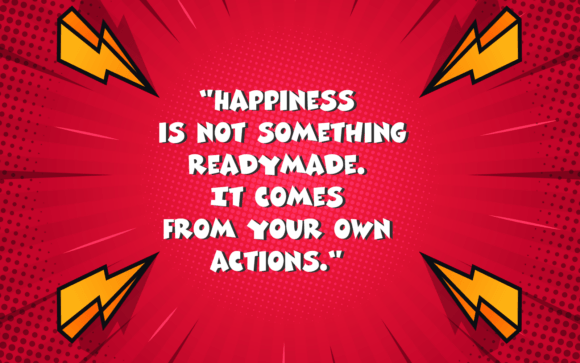
Introducing Comic Crunch Font: Unleash the Fun and Energy of Comics in Your Designs!
Are you a designer, artist, or crafter looking to add a playful and dynamic touch to your projects? Look no further than the Comic Crunch Font! This bold and energetic font is specifically designed to capture the fun, action-packed spirit of cartoon stories and comic art. With its thick, rounded lines and lively personality, Comic Crunch Font is the perfect choice for anyone looking to bring a sense of excitement and energy to their designs.
The Perfect Font for Comic Art and Cartoon Stories
Comic Crunch Font is designed to pop off the page, making it ideal for use in speech bubbles, headlines, and captions. Its unique and dynamic flair adds a touch of playfulness to every word, transporting your readers into the world of comics. Whether you’re creating a comic book, a cartoon, or a graphic novel, this font is sure to bring your characters and stories to life.
Key Features of Comic Crunch Font
- Bold and Energetic: Comic Crunch Font features thick, rounded lines that give it a bold and energetic feel, perfect for capturing the action-packed spirit of comics.
- Playful Personality: This font has a lively and playful personality that adds a touch of fun to every design.
- Dynamic Flair: Comic Crunch Font is designed to pop off the page, adding a dynamic flair to speech bubbles, headlines, and captions.
- Easy to Read: Despite its bold and playful design, Comic Crunch Font is easy to read, making it perfect for use in a variety of projects.
Uses for Comic Crunch Font
Comic Crunch Font is perfect for a wide range of projects, including:
- Comic Books and Graphic Novels: Add a touch of authenticity to your comic book or graphic novel with this bold and energetic font.
- Cartoon and Animation: Bring your cartoon characters to life with Comic Crunch Font, perfect for use in titles, captions, and speech bubbles.
- Children’s Books: Add a playful touch to your children’s book with this fun and energetic font.
- Posters and Flyers: Use Comic Crunch Font to create eye-catching posters and flyers that are sure to grab attention.
- Digital Media: Perfect for use in digital media, such as video games, apps, and websites.
Why Choose Comic Crunch Font?
There are many reasons why designers and crafters choose Comic Crunch Font for their projects. Here are just a few:
- Unique and Playful Design: This font has a unique and playful design that sets it apart from other fonts.
- Easily Readable: Despite its bold and playful design, Comic Crunch Font is easy to read, making it perfect for use in a variety of projects.
- Versatile: This font can be used in a wide range of projects, from comic books and graphic novels to posters and digital media.
- High-Quality: Comic Crunch Font is a high-quality font that is designed to deliver exceptional results.
Get Ready to Jump into the World of Comics!
If you’re looking to add a playful and dynamic touch to your designs, look no further than Comic Crunch Font. With its bold and energetic design, this font is perfect for capturing the fun, action-packed spirit of cartoon stories and comic art. So why wait? Download Comic Crunch Font today and start creating your own comic book-style designs!
In conclusion, Comic Crunch Font is a bold and energetic font that is perfect for designers, artists, and crafters looking to add a playful touch to their projects. With its unique and dynamic design, this font is sure to bring a sense of excitement and energy to every design. Whether you’re creating a comic book, a cartoon, or a graphic novel, Comic Crunch Font is the perfect choice. So why wait? Download Comic Crunch Font today and start creating your own comic book-style designs!